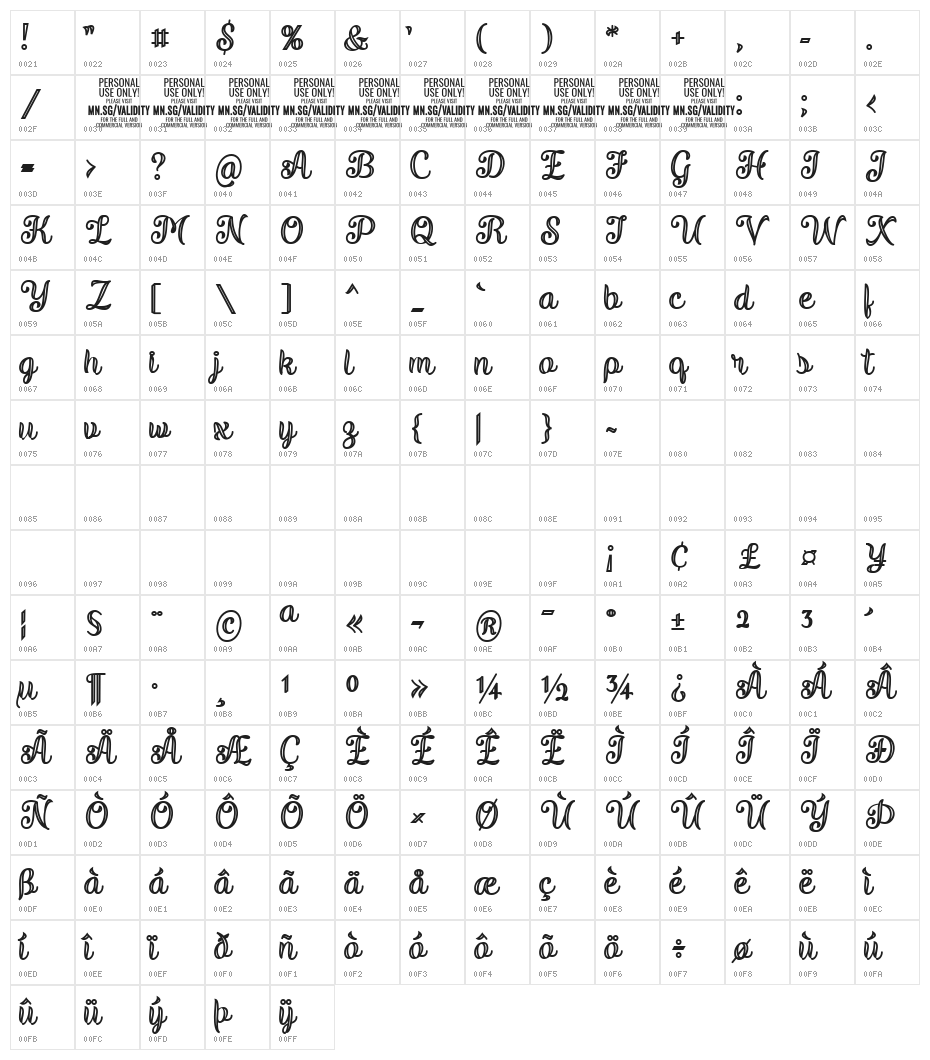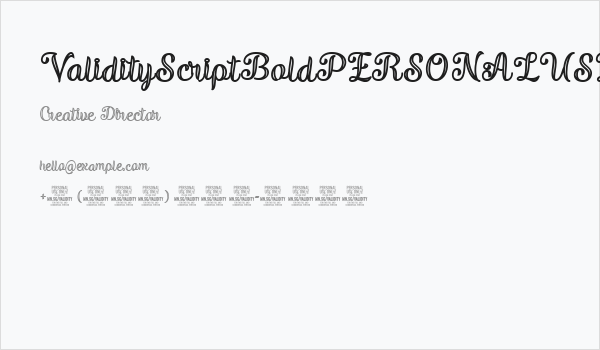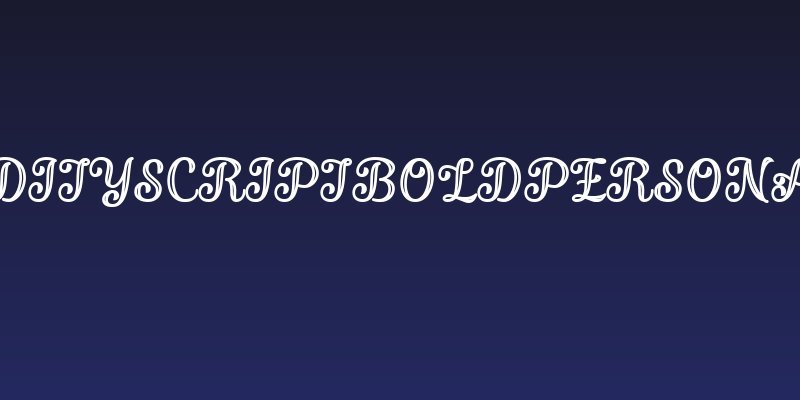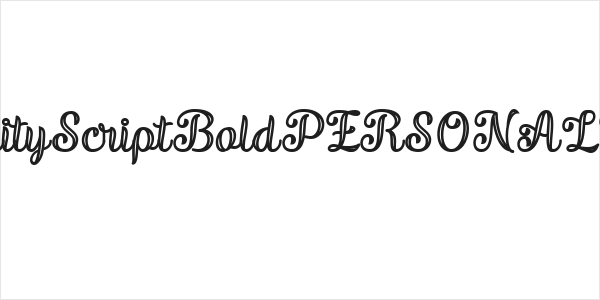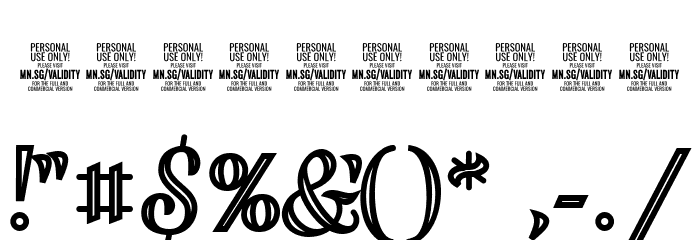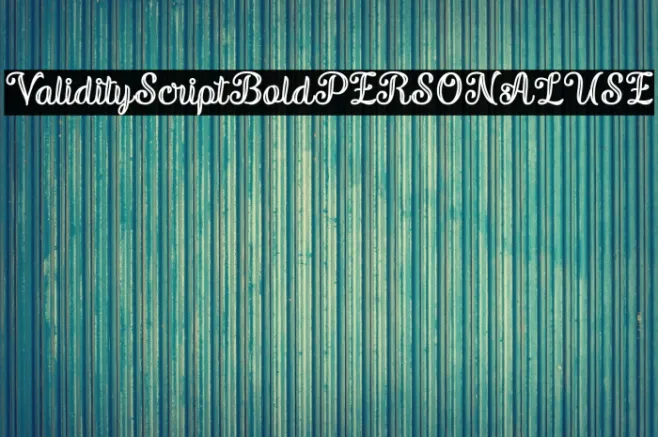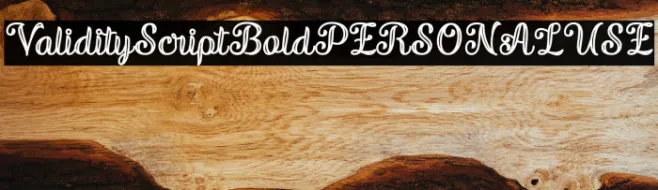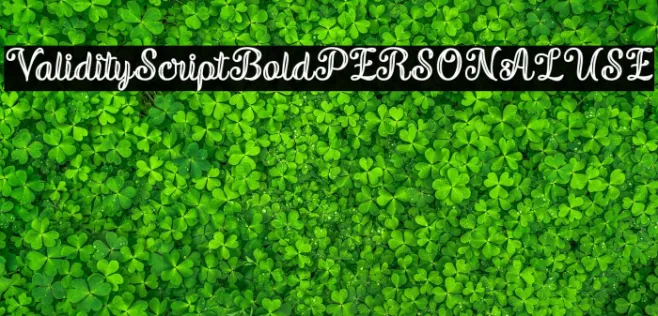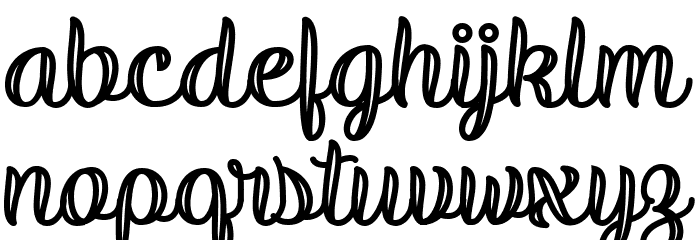
ValidityScriptBoldPERSONALUSE Font
ValidityScriptBoldPERSONALUSE Description
This font features a bold, cursive style with a playful and decorative flair. The uppercase letters are characterized by their looping, interconnected strokes, giving them a whimsical appearance. The lowercase letters maintain a consistent flow, with rounded edges and smooth curves that enhance readability while retaining an artistic touch. The numbers and special characters are designed to match the overall aesthetic, incorporating similar loops and curves. This font is ideal for projects that require a touch of elegance and creativity, such as invitations, greeting cards, or branding materials.
| Proposed Projects | Ideal for invitations, greeting cards, branding, and creative projects. |